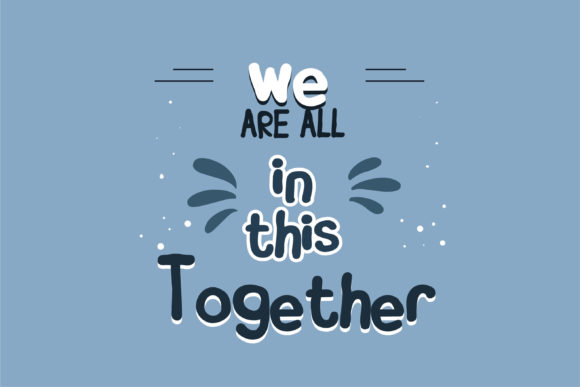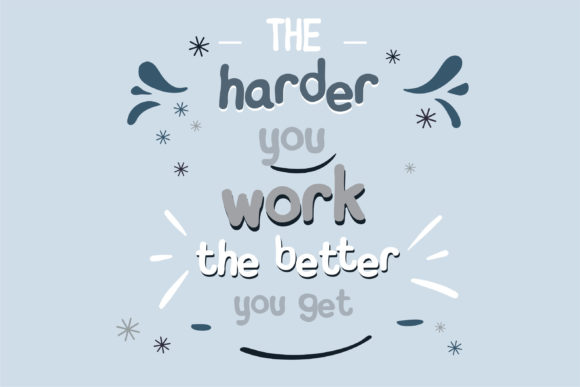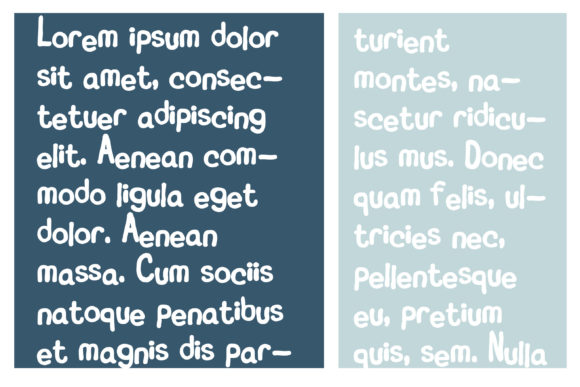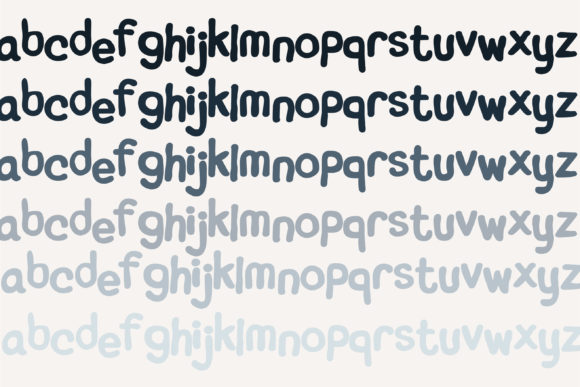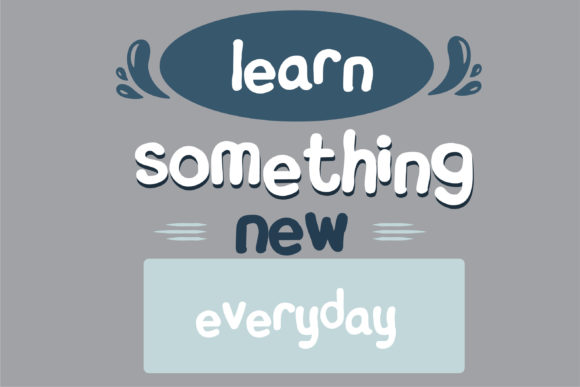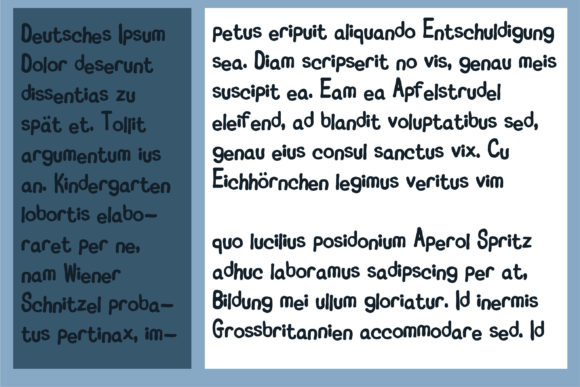
Introduction to Peppy Pigeon Font
Peppy Pigeon is a hand-crafted sans serif that has a very hand-made look, with a toggled baseline.
It’s perfect for any item that needs playful typography .
Key Features of Peppy Pigeon Font